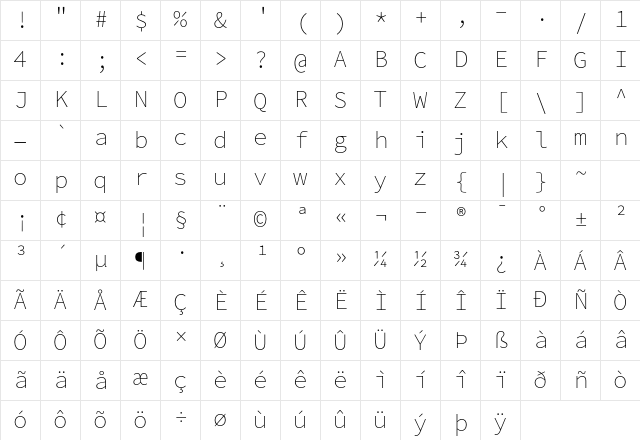
Hasklig ExtraLight Regular
Designer: Paul D. Hunt, Teo Tuominen
Design Context for Hasklig ExtraLight
Hasklig ExtraLight is a composed and adaptable typeface that performs quietly and consistently across a wide range of design contexts. Its slender proportions lend an understated elegance to any composition.